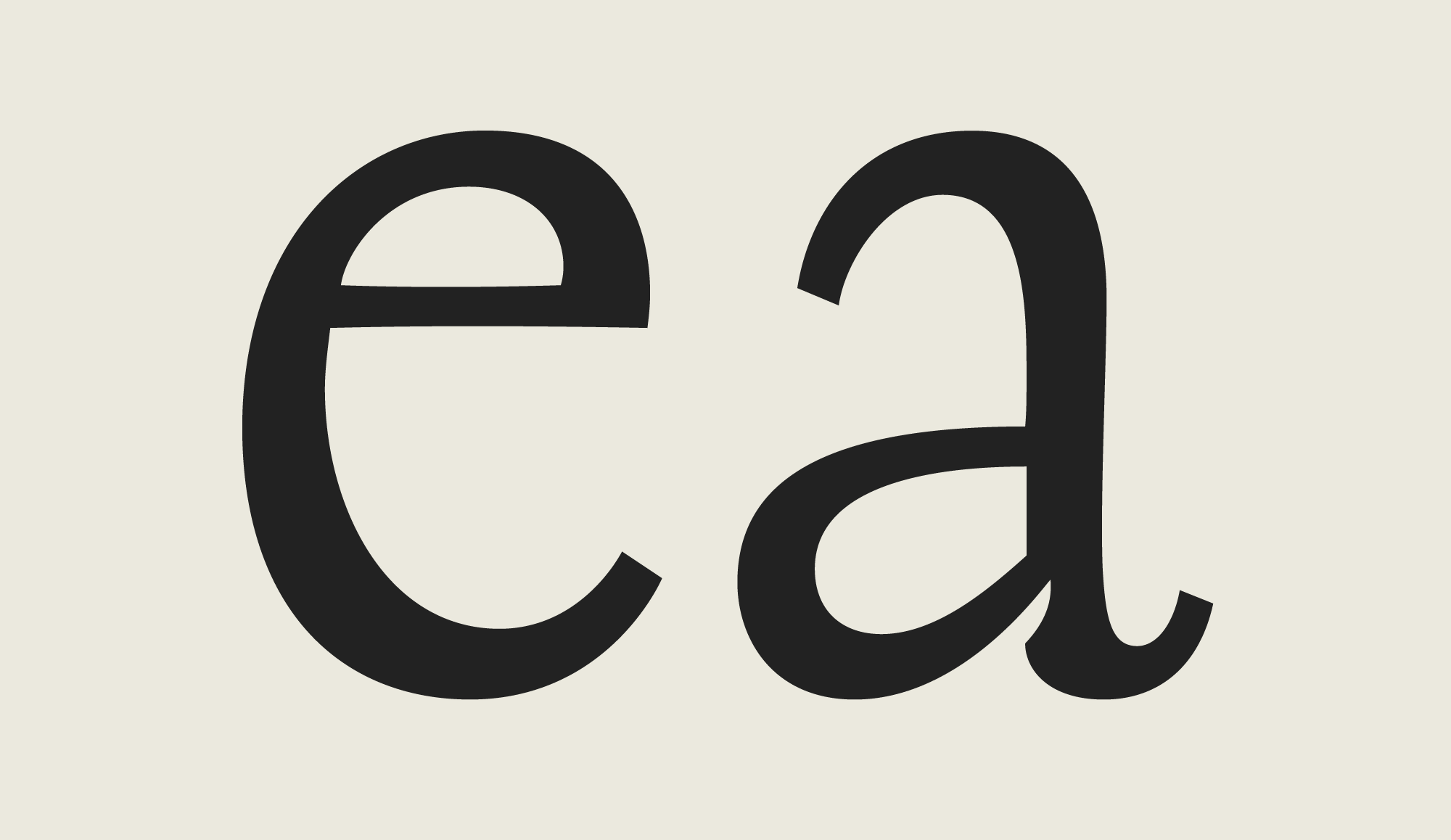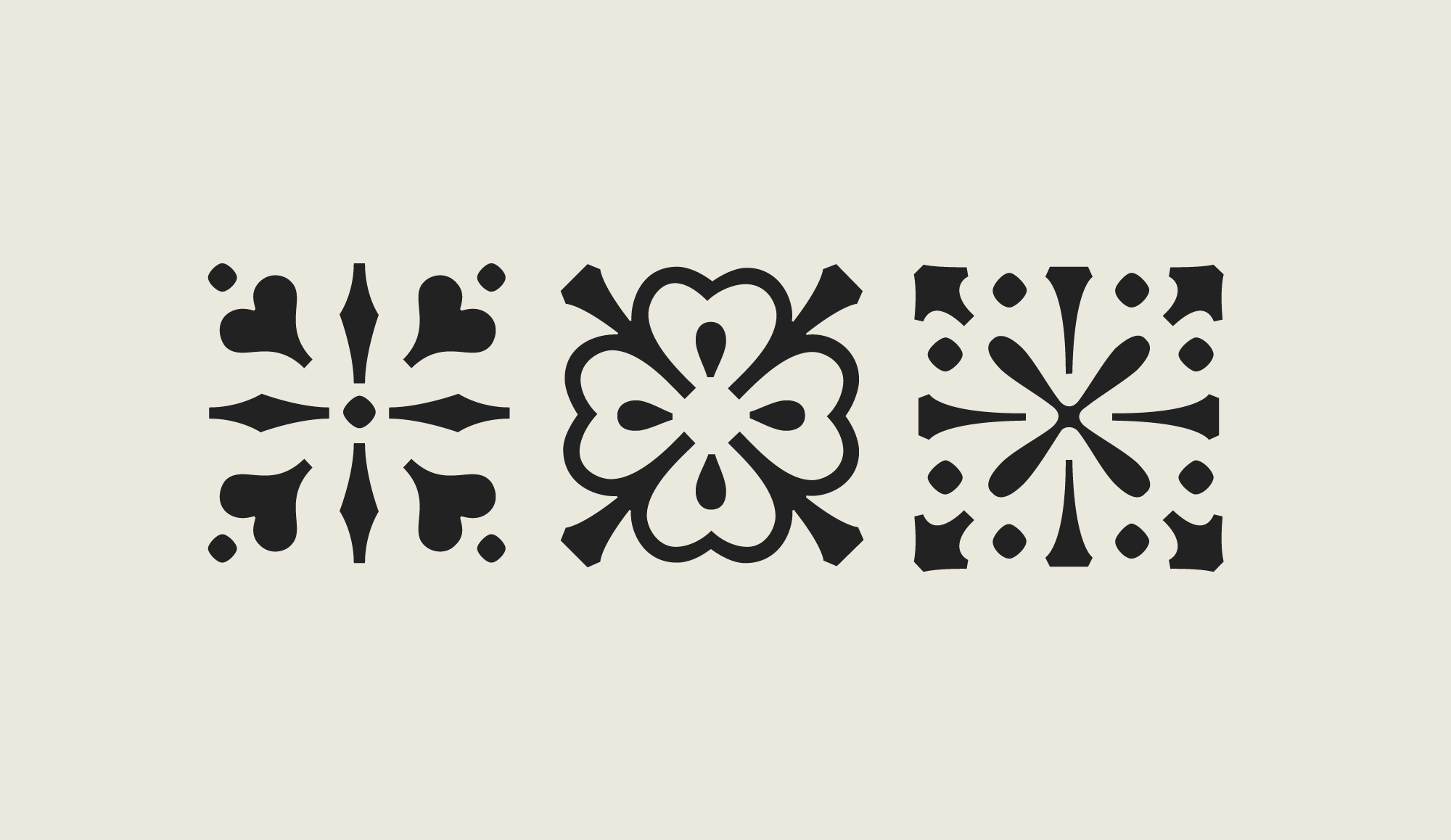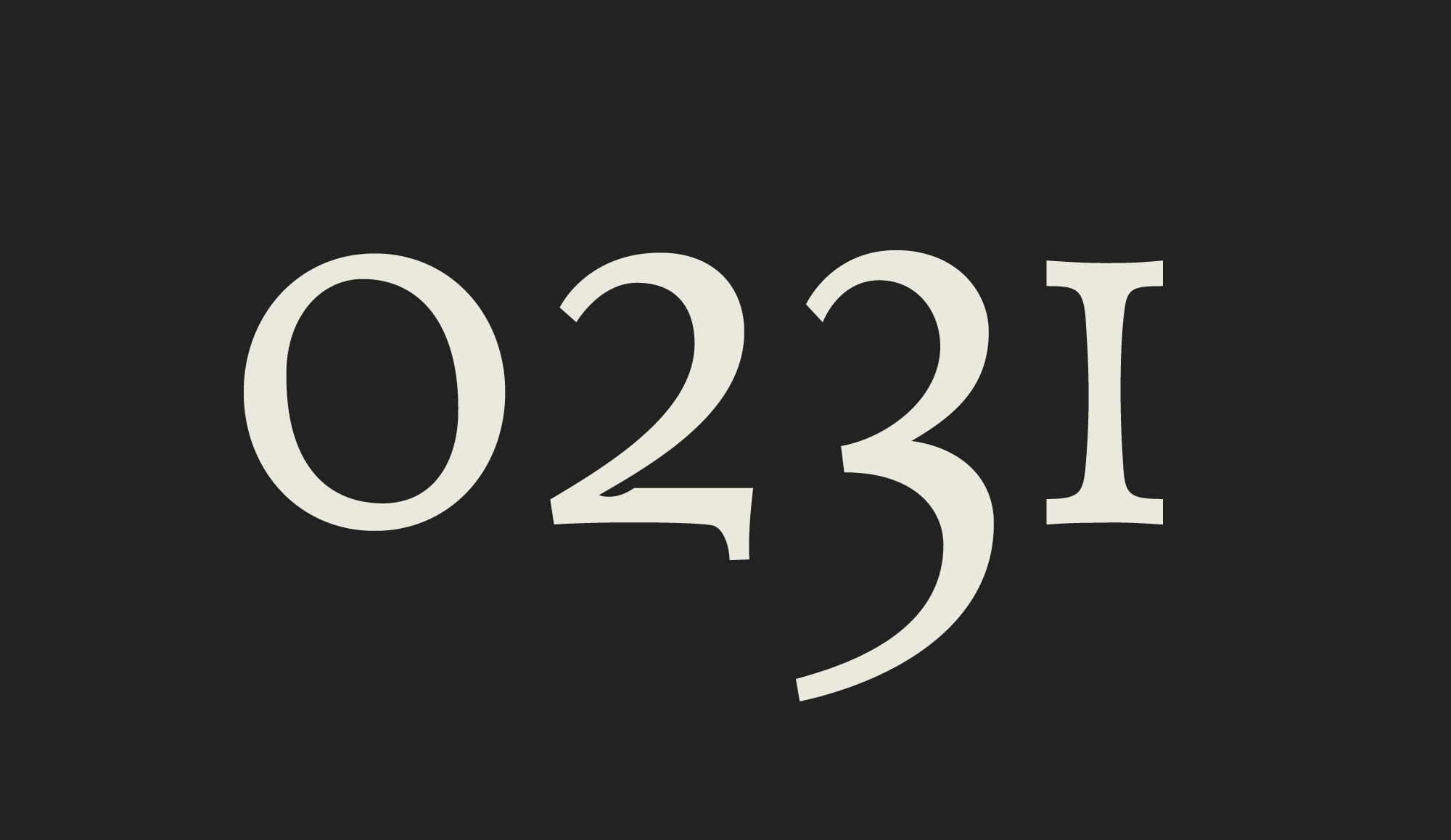
Opal
Explore Opal: A type family including Regular, Bold, Italic, Script and a lot of specials.
Opal gives every text a noble character. The typeface has long ascenders that clearly rise above the capital letters and a low x-height. Opal’s letters sport inktraps at stroke junctions, which on one hand create a cutout feeling and on the other hand strengthens the image in larger point sizes. In total, the letterforms have clear emphasis on their verticals and horizontals; they do not fear the weight on their curves. In addition to the Italic and Bold, the Opal type family includes a Script face, whose letterforms include connections, similar to handwriting. On top of that, the typeface possesses swash letters for italic and script, small caps, many ligatures and borders & ornaments. With a little bit of care, designers will be able to create the finest of traditional, elegant work with this family.
Opal includes a lot of features. Welcome to the royals!
Opal is a text face with a noble feeling, yearning for luxury and still delivering. Because of the long ascenders that rise clearly above the capital letters, Opal should be set with generous line spacing. The typeface’s design has the attributes of the oldstyle Renaissance serifs, yet Opal is not based on any specific predecessors. Through undulating strokes and sharp corners, a cutout feeling is created; Opal’s letters sport inktraps at stroke junctions, which this strengthen this image in larger point sizes even further. In total, the letterforms have clear emphasis on their verticals and horizontals; they do not fear the weight on their curves. Also, each Opal font is equipped with a set of border element glyphs, which users may enlarge to their desired size and then reposition accordingly. With a little bit of care, designers will be able to create the finest of traditional, elegant work with this family.
The Opal type family is available with four basic fonts: Regular, Italic, Bold, and Script. Each font includes ligatures. The Regular, Italic, and Bold also include small caps. The Italic and Script fonts include alternates (swash letters). Additionally, each font in the Opal family includes an array of border elements and ornaments.